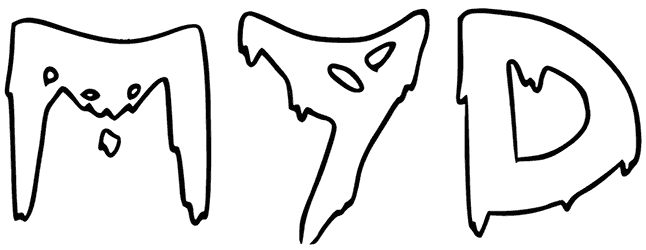
MXCLOAK Font
Say hello to a dripping font and strikingly present your work. This one can be a perfect choice for friendly and casual conditions. It’s suitable for titles, logos, headlines, and so on. It’s time to capture attention at a glance, don’t you agree? Download it right away and experience a seamless presentation.
Designed by: Afterthem Studio